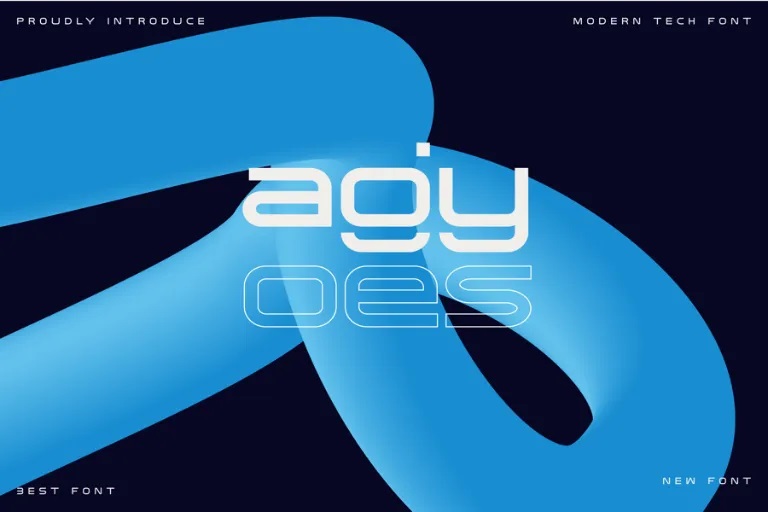
Agyoes Font
Agyoes is a high-quality display font created by #. You can download it for free and use it for personal projects. It works well for elegant logos, branding, travel ads, magazines, beauty products, packaging, quotes, or as a stylish text overlay on any background.
Agyoes Display Font